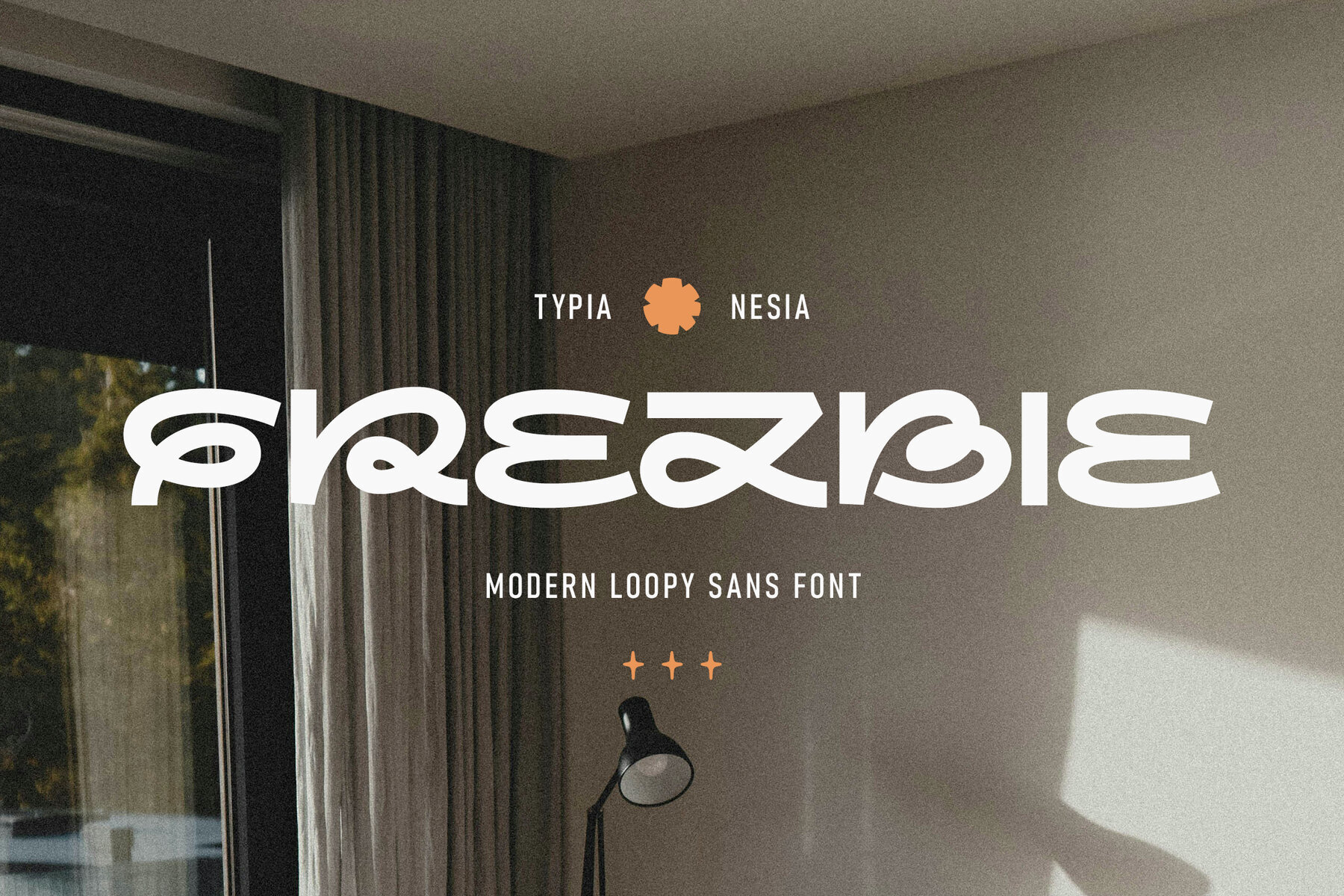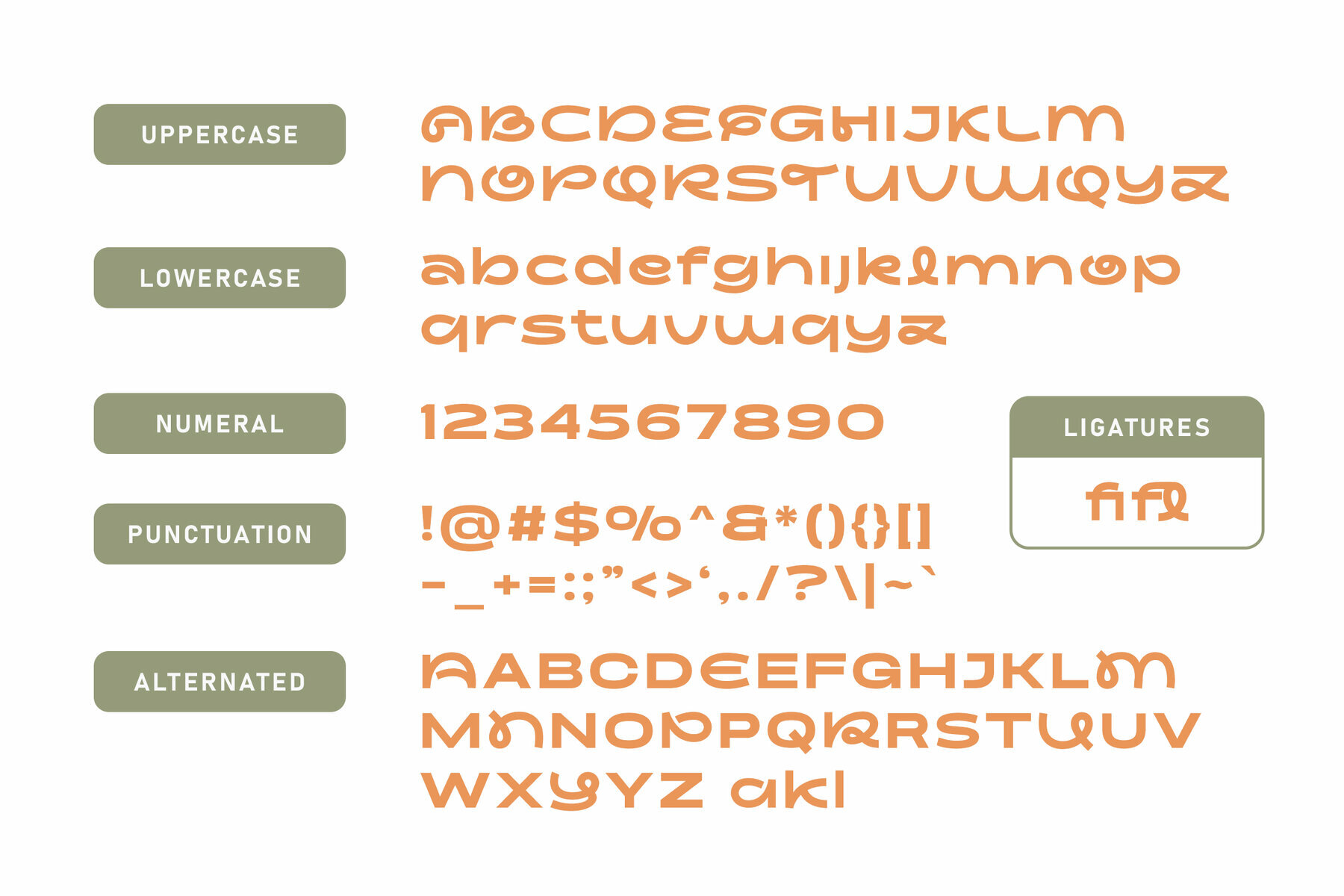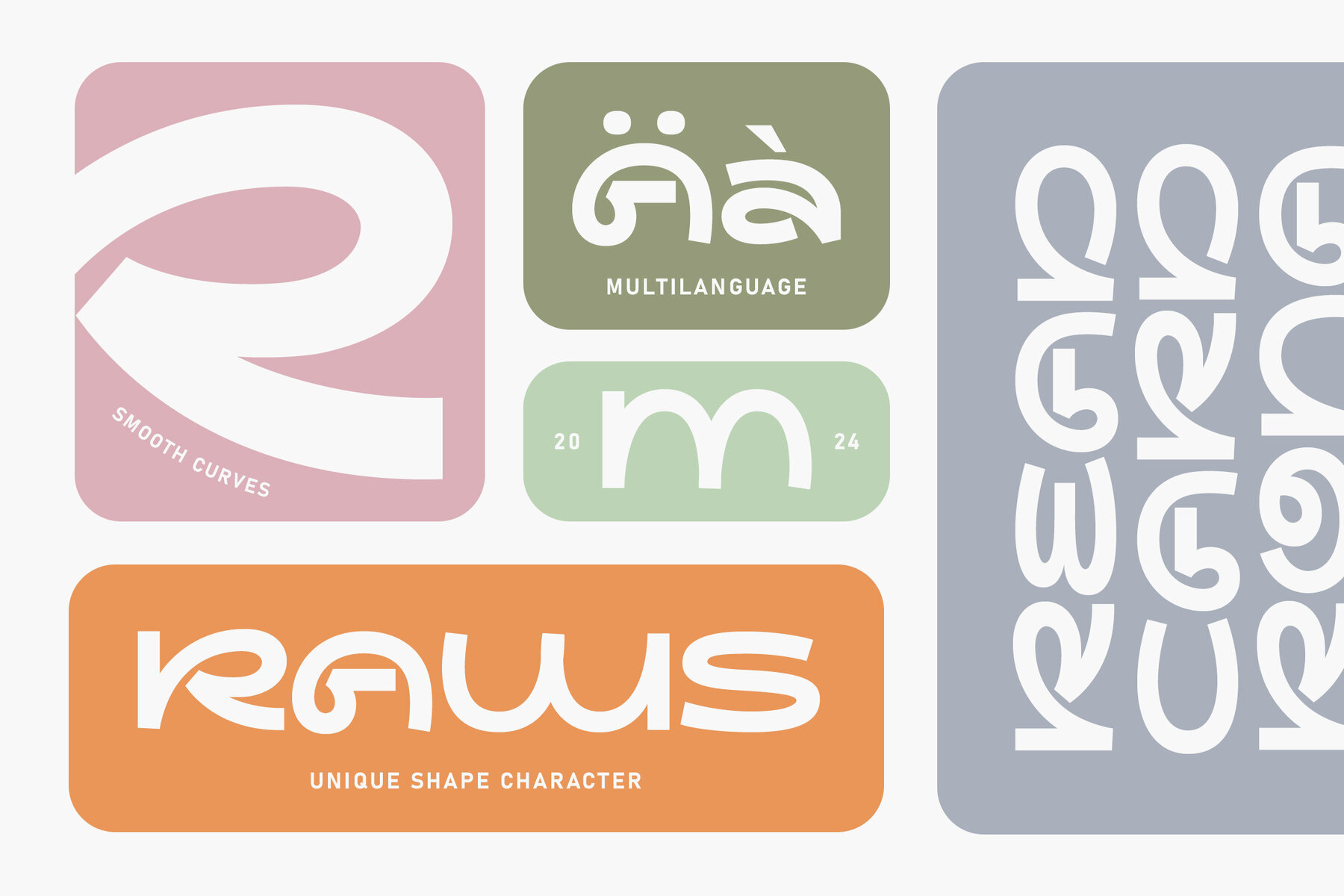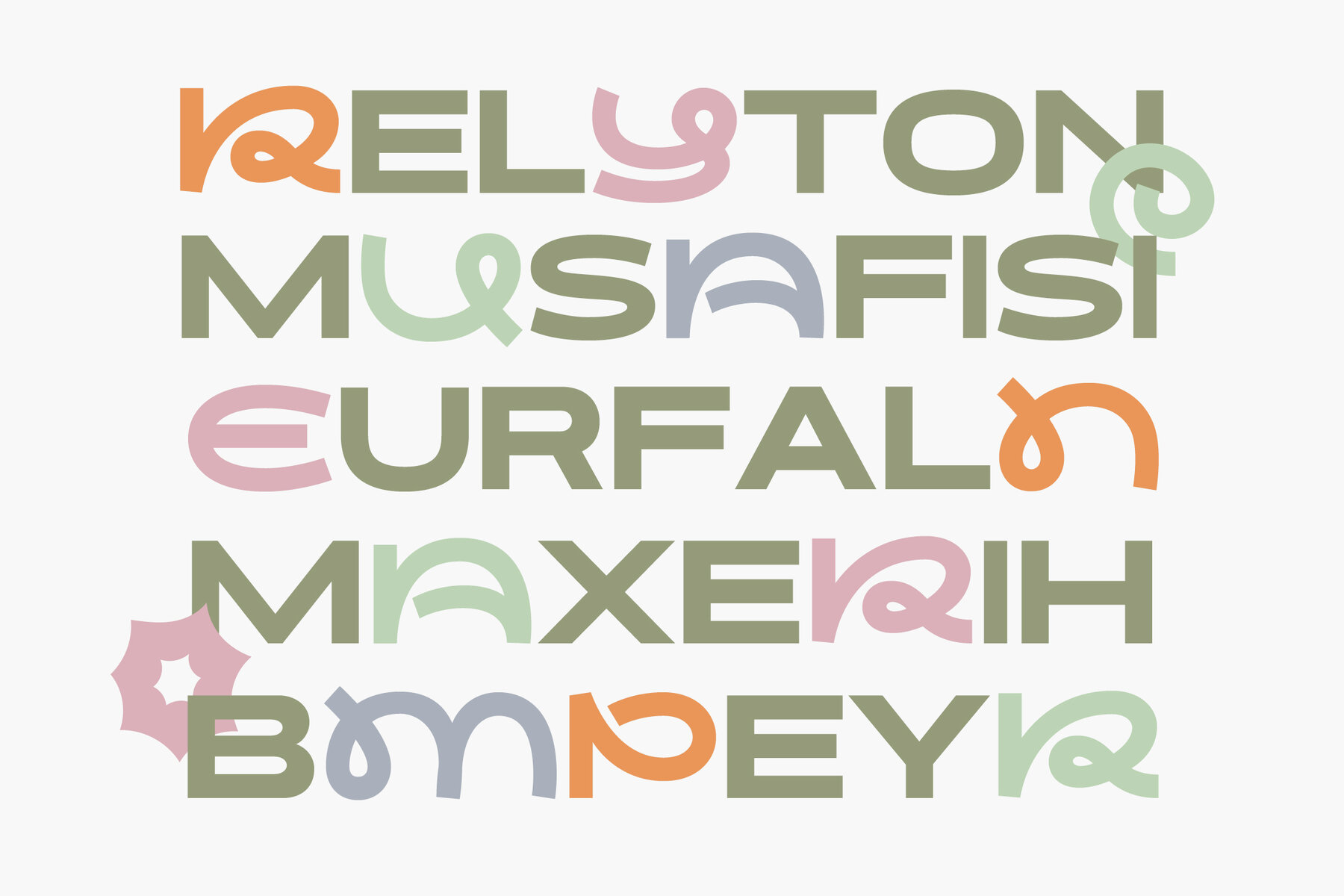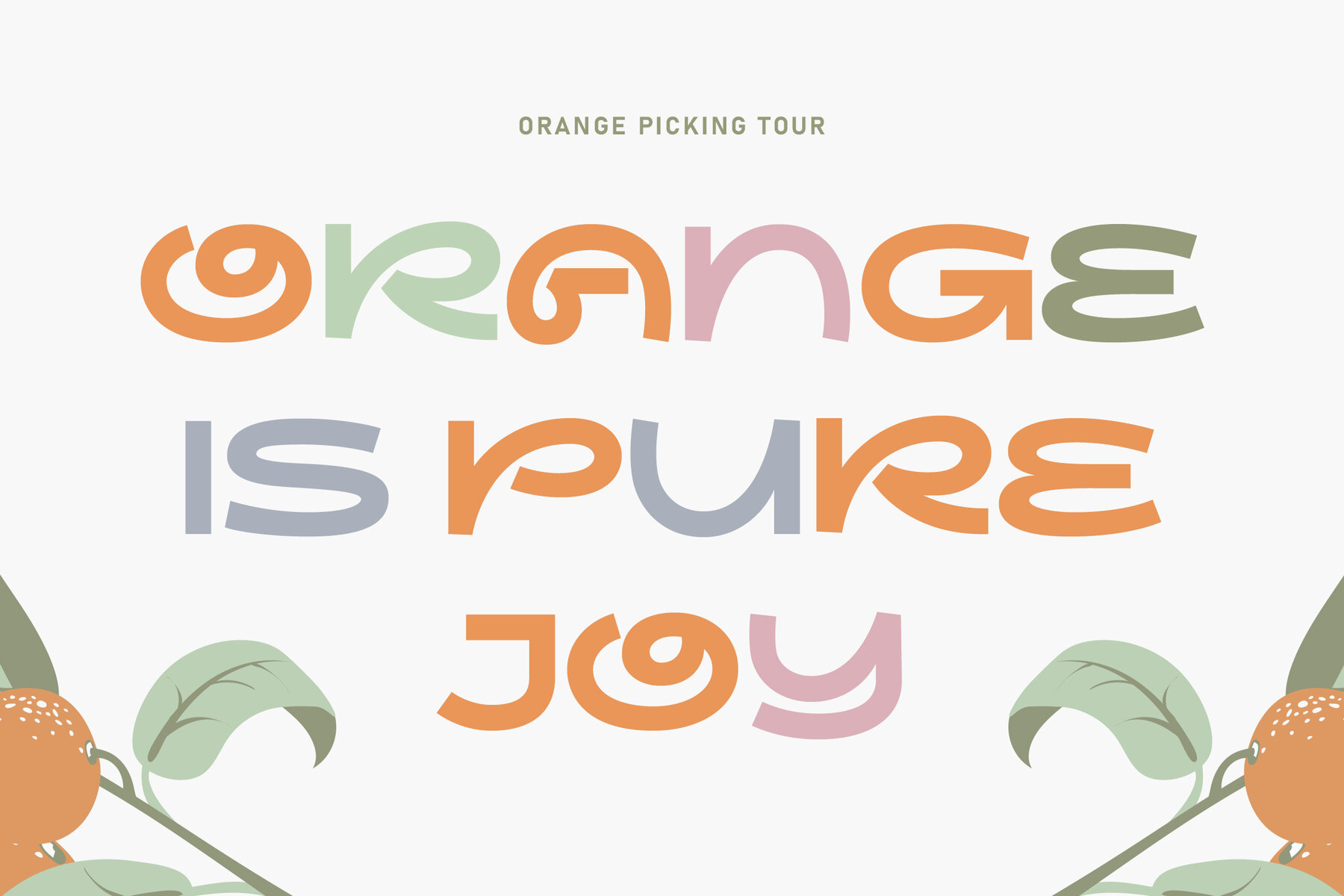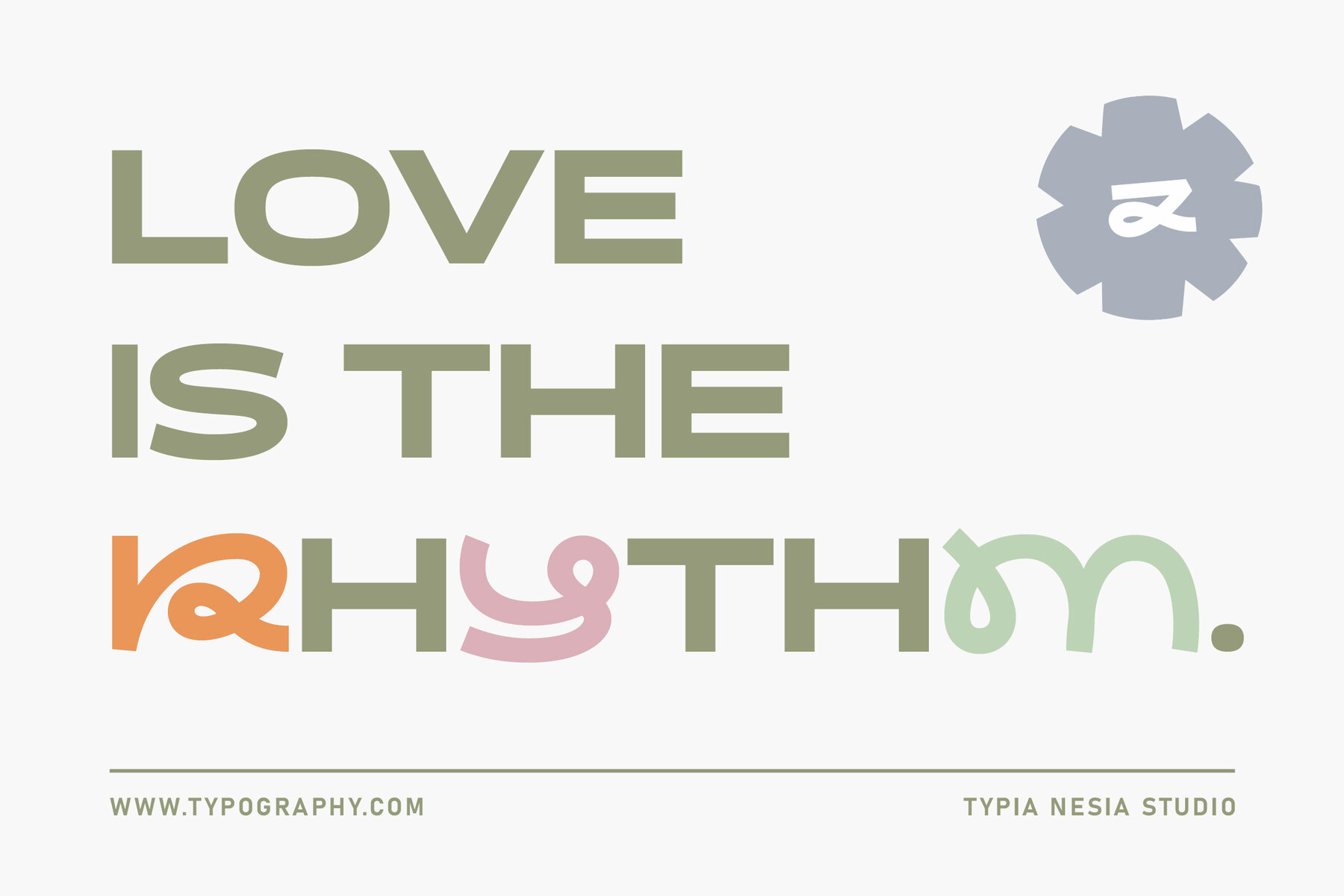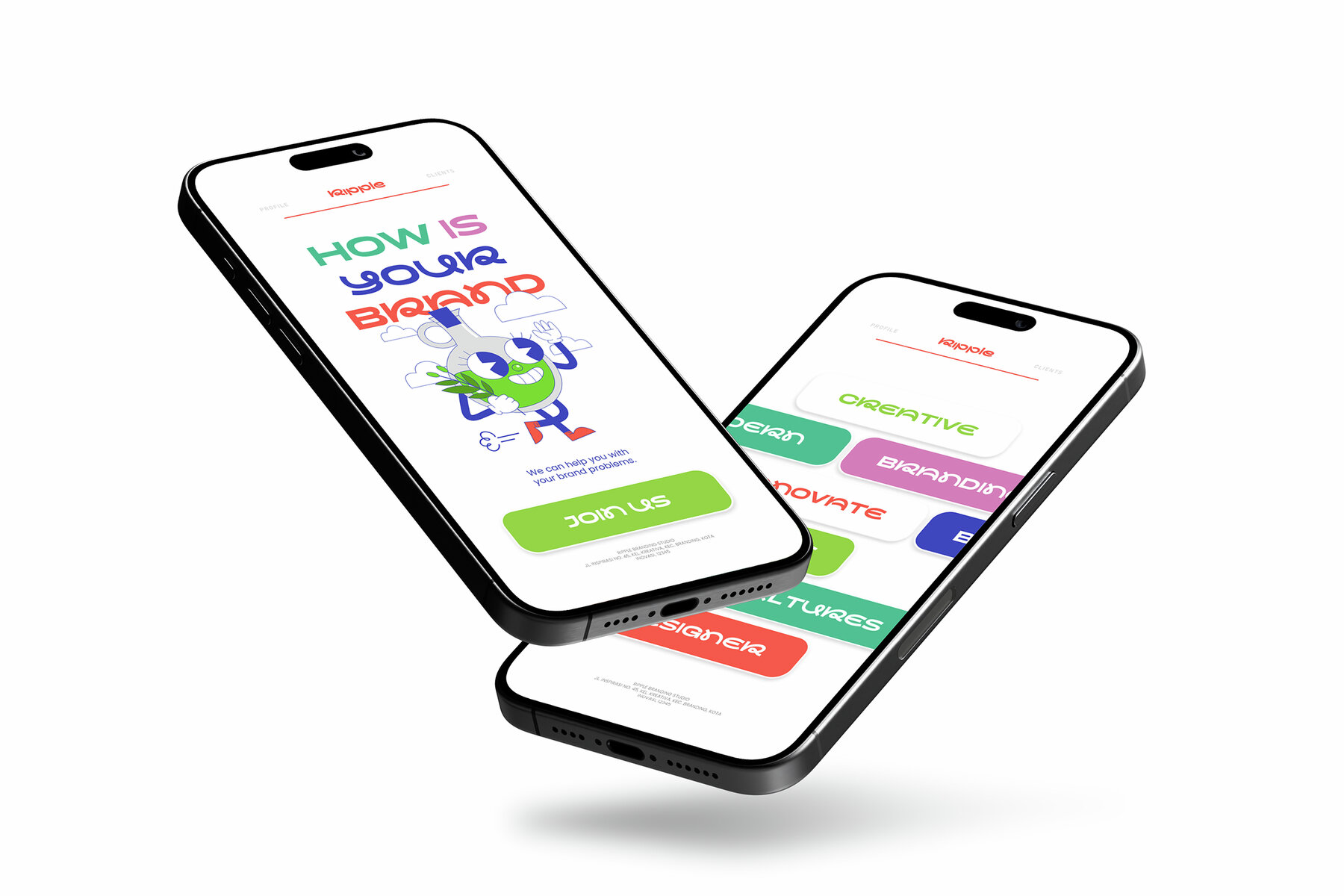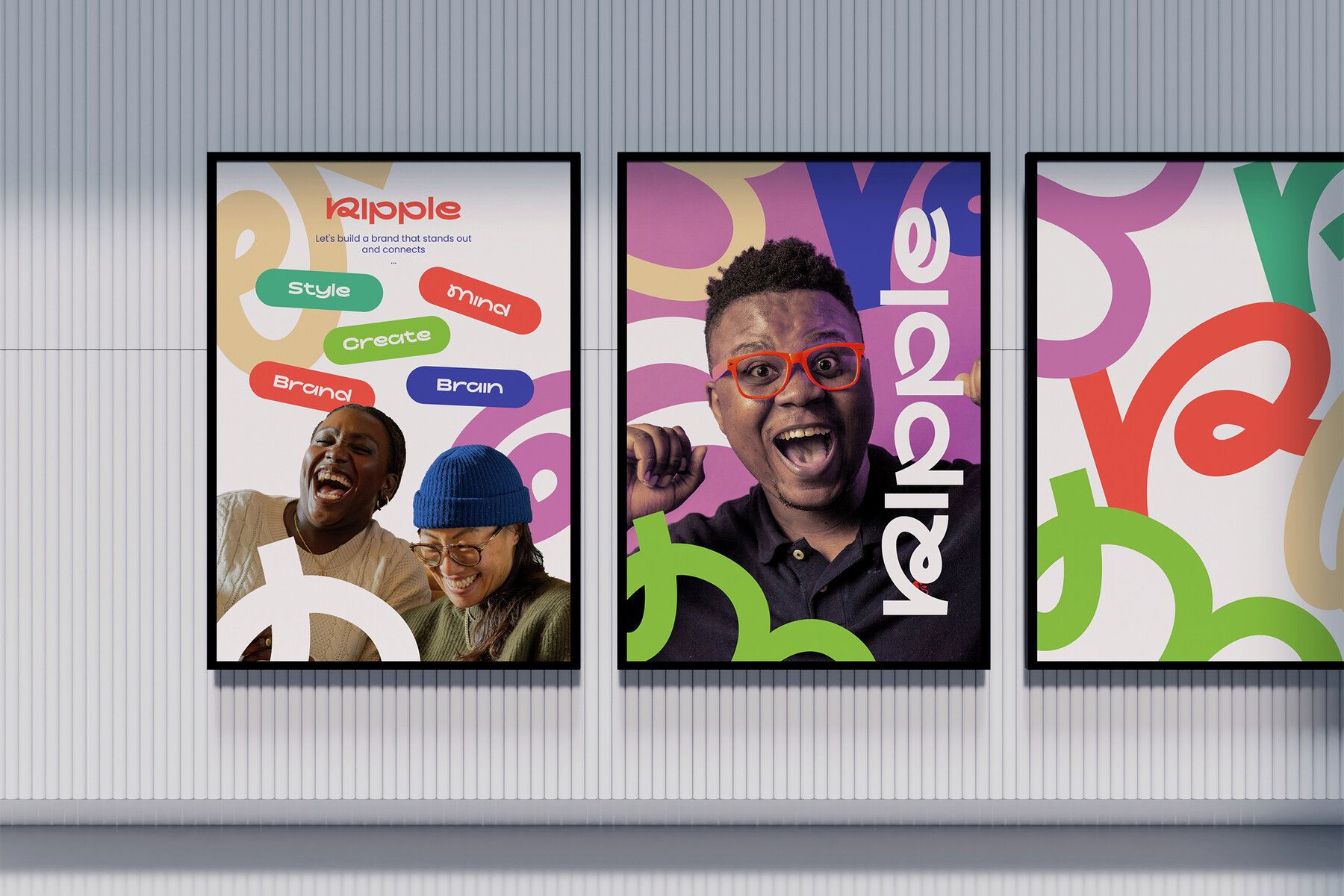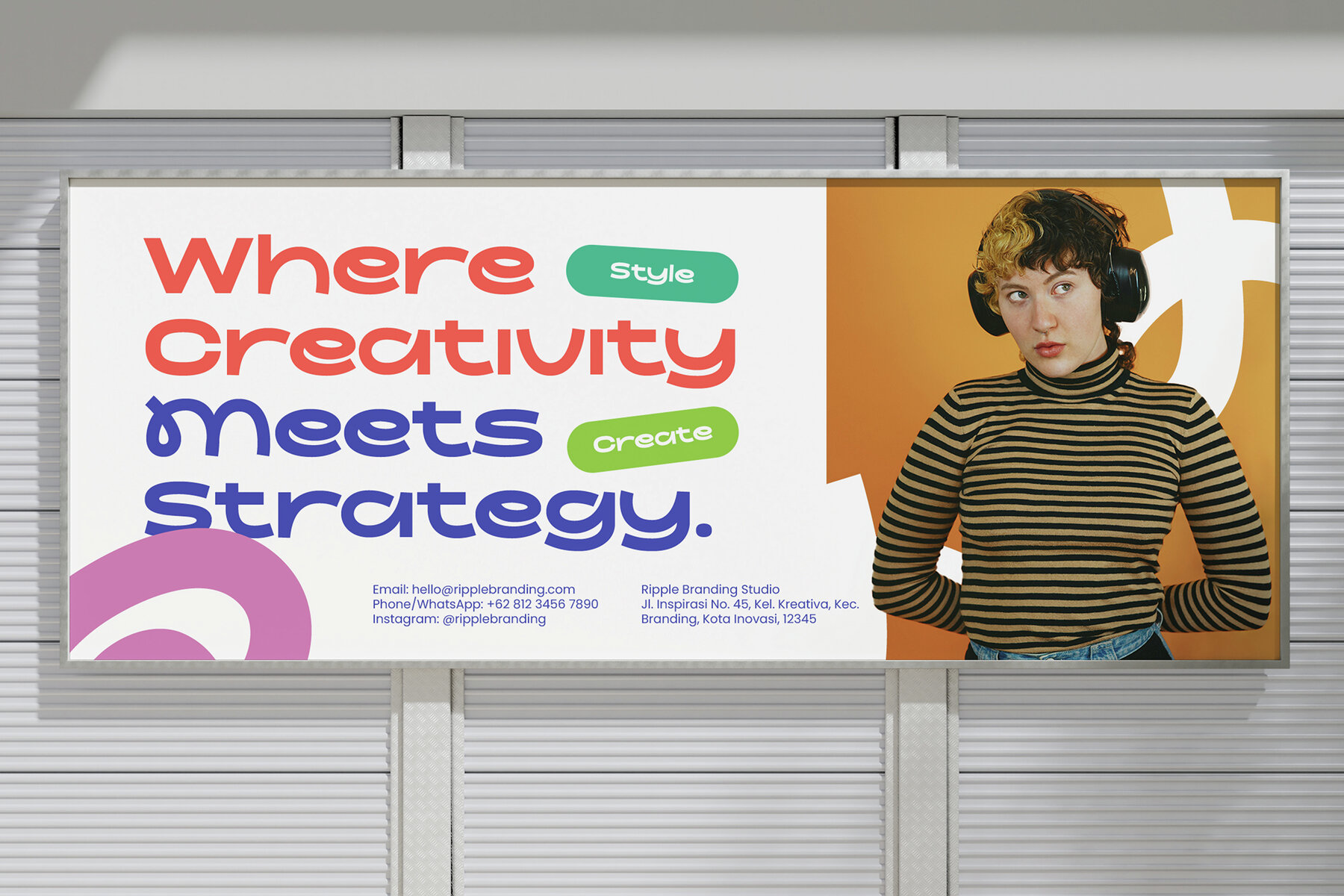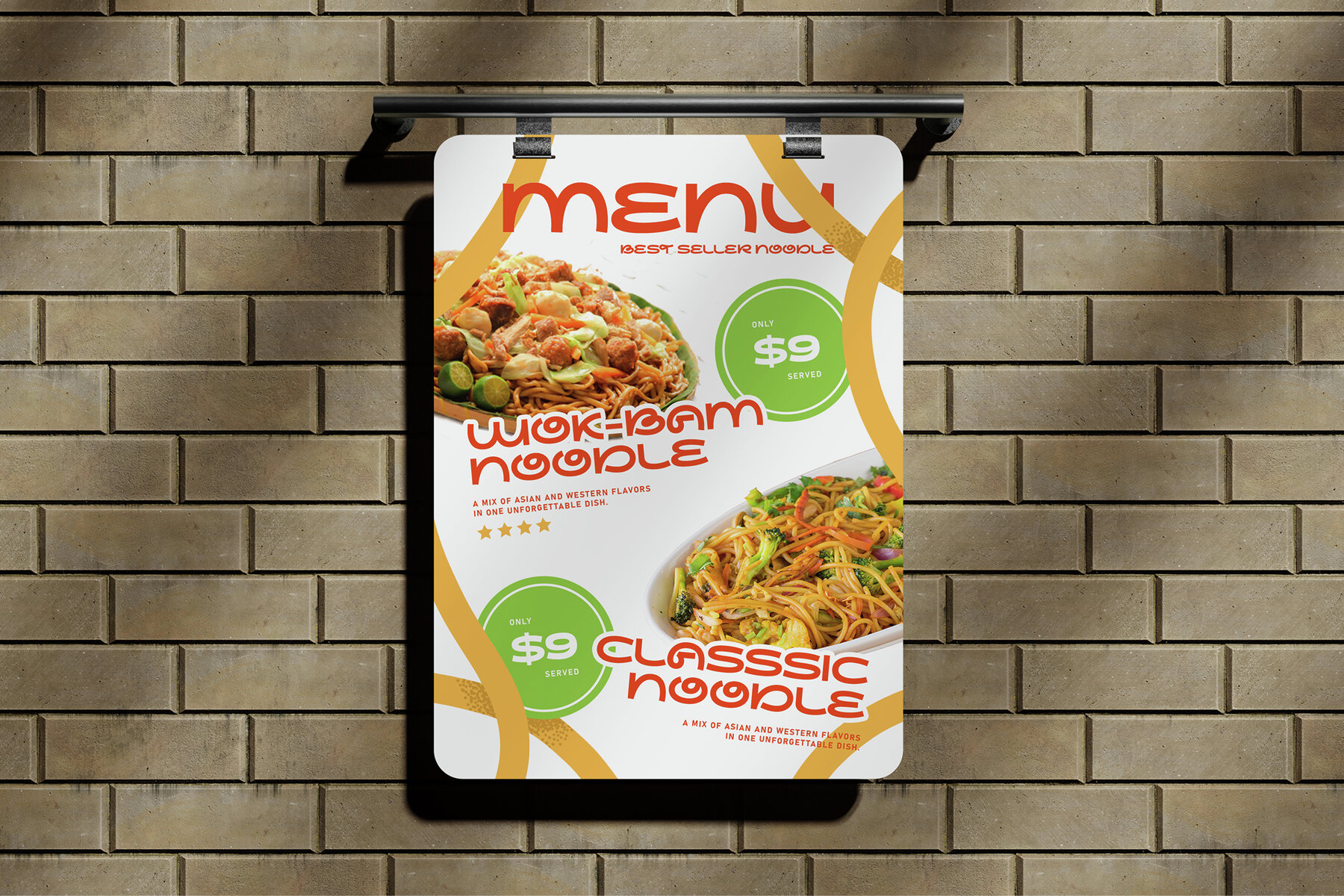
Frezbie Font
Frezbie Regular
Frezbie is a modern sans serif typeface featuring playful and unique loopy details that bring a contemporary flair to any project. This vibrant font is perfect for designers seeking to add personality and creativity to branding projects, logos, product packaging, social media graphics, posters, and headlines. Its cheerful and sophisticated design makes it ideal for an array of creative applications.
The font includes uppercase and lowercase letters, punctuation, numerals, stylish ligatures, and alternates, offering creative versatility for your projects. With multilingual support, Frezbie is also suitable for international endeavors, ensuring ease of use across different languages and regions. This typeface provides both functionality and style, making it a standout choice for projects aiming for a unique and modern aesthetic.
Whether you’re revamping a brand or creating whimsical advertising campaigns, Frezbie’s lively design can elevate your work. Embrace its quirky and elegant characteristics to add a twist of fun and sophistication to your creations.